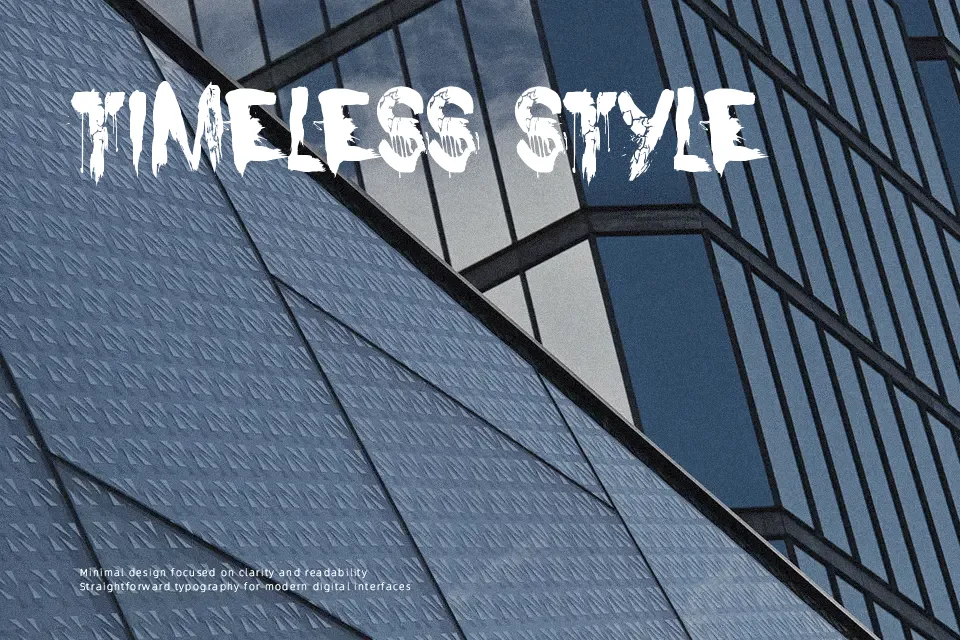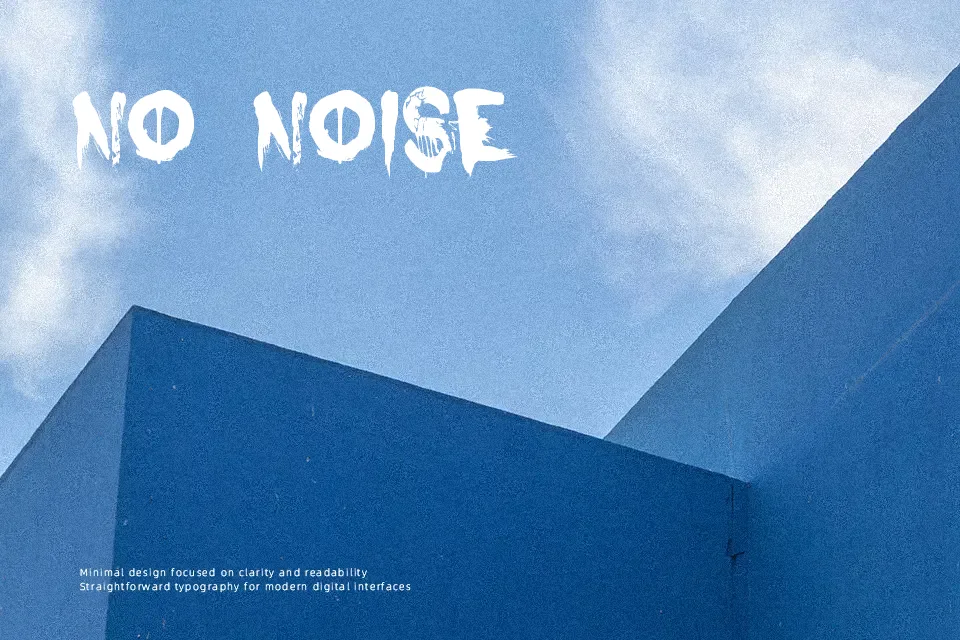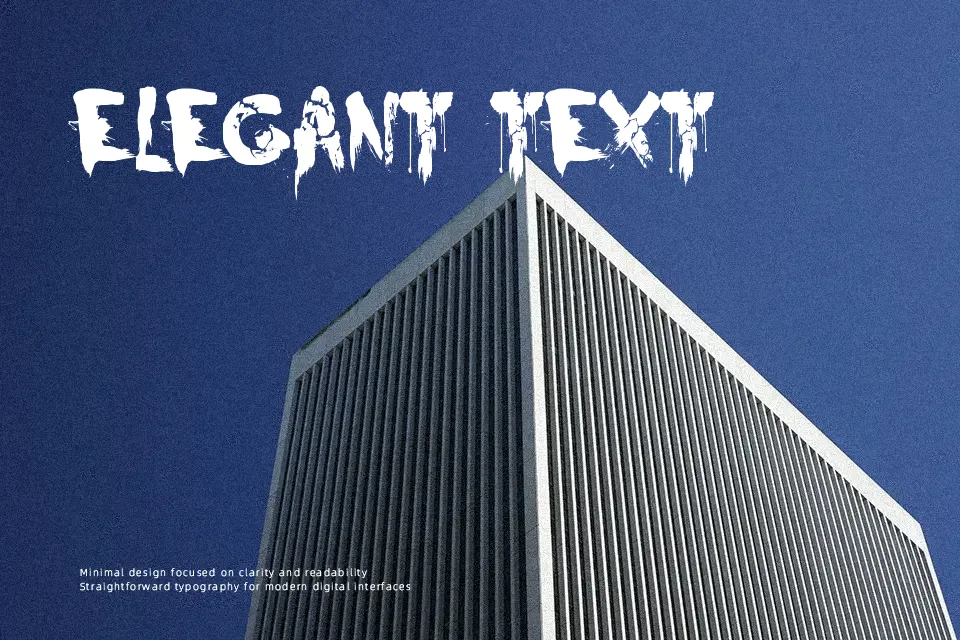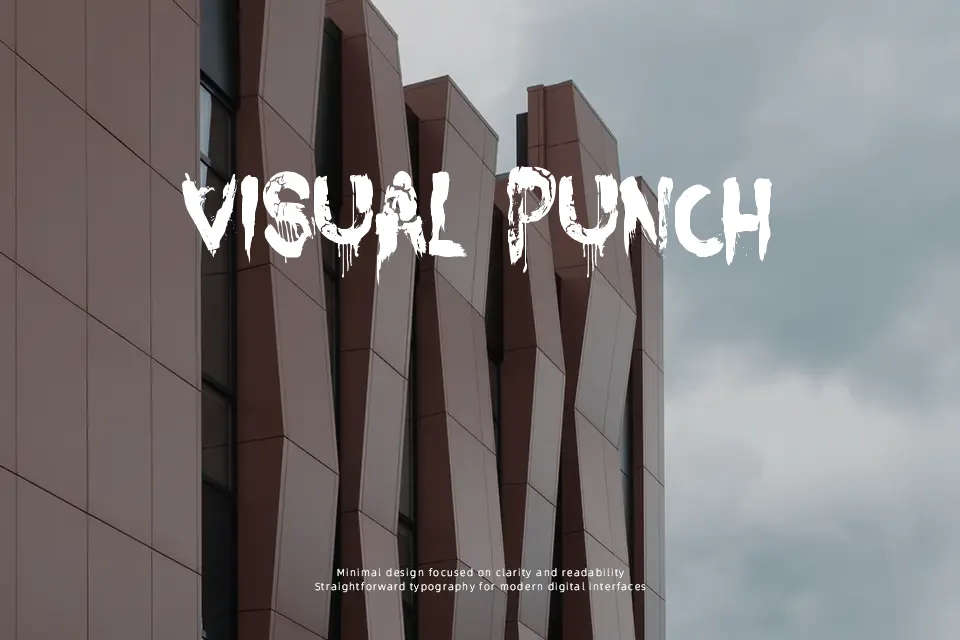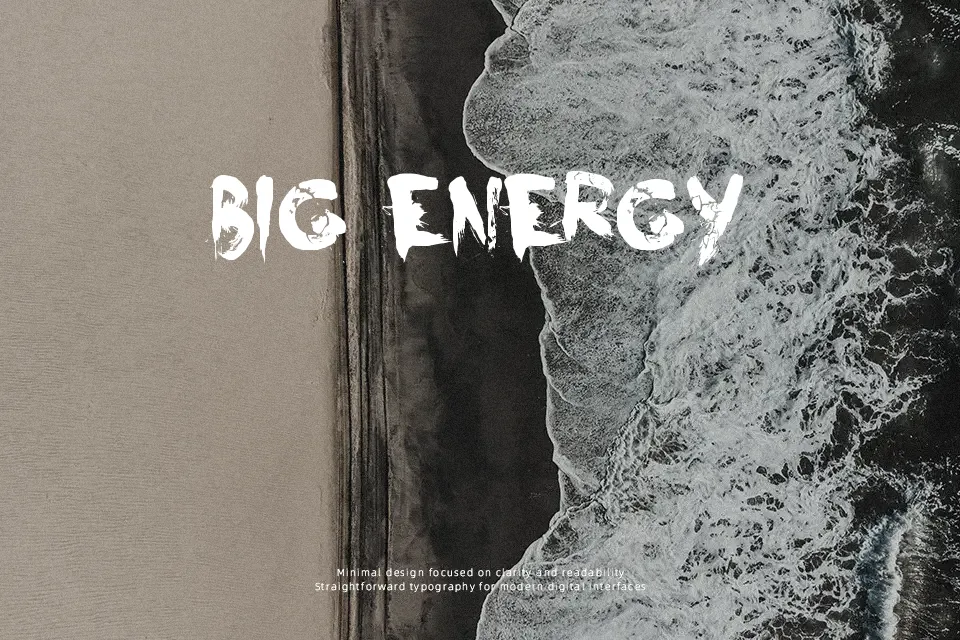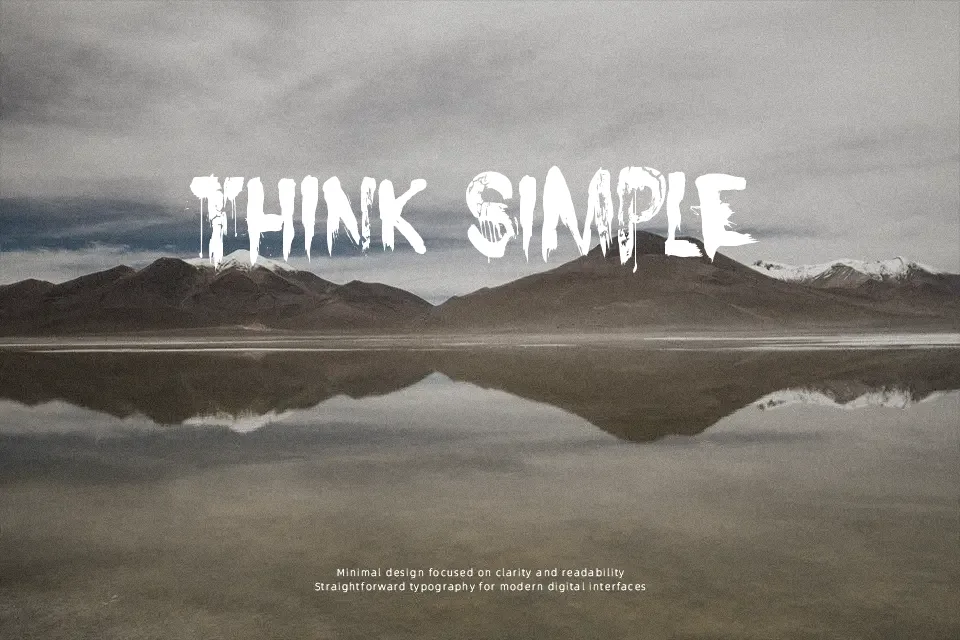
Nightbird Font
Nightbird presents jagged, distressed letterforms with uneven stroke edges and visible erosion, giving each character a scratched, worn appearance that immediately reads as dramatic and dark. The strokes are moderately heavy with irregular contrast, and terminals often break into fragmented shapes rather than clean curves. Many glyphs lean or twist slightly, so proportions feel intentionally unstable, which enhances its chaotic look but reduces comfort in continuous reading. Spacing appears compact and visually noisy, especially in uppercase sequences, making it stronger in short, high-impact words than in dense paragraphs. At large display sizes the texture remains legible and adds character, while at smaller sizes the rough detailing starts to blur, so it works best for standout headlines and less for small captions or long text blocks. Overall, the design excels when used sparingly, where its aggressive texture supports the message without overwhelming the layout.
horror movie posters and titles,album or band logos with dark themes,event flyers for halloween or gothic nights,short headline text on dramatic covers
body copy in articles or books,formal corporate reports or presentations,small ui labels or dense data tables,long-form editorial layouts
Perfect for headline, logo, and music, with a artistic and decorative style.